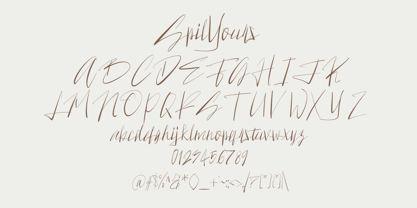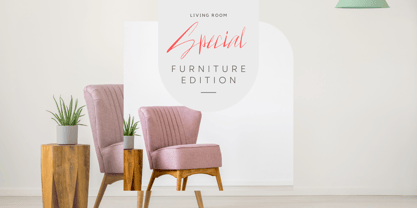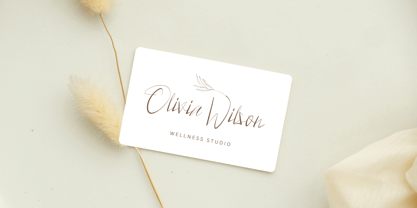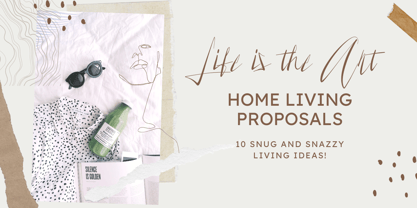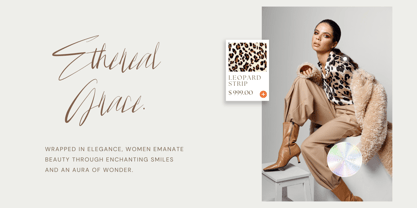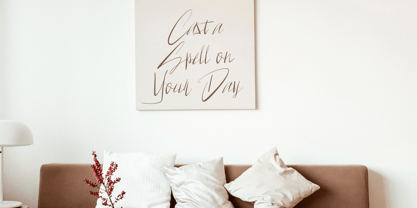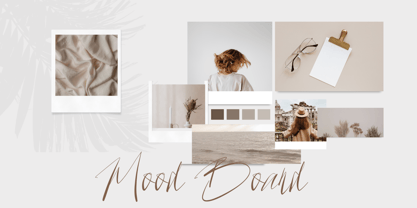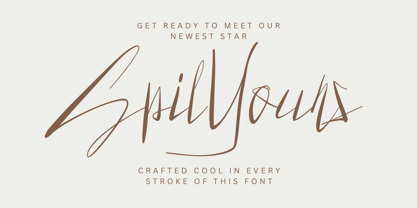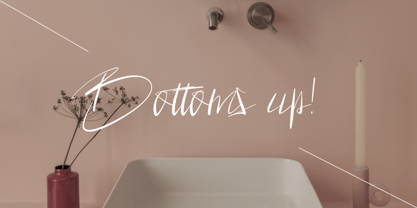
Spil Yours
by Saytype
The Spil Yours Font Family was designed by Sayuti Yuti and published by Saytype. Spil Yours contains 1 styles. More about this family
SpilYours – Signature Style with a Twist of Cool
Get ready to meet SpilYours, a handcrafted script font that blends elegant strokes with bold personality. Its effortless charm makes it perfect for everything from branding to editorial design, and everything in between.
Uppercase & lowercase characters
Natural, flowing ligatures
Punctuation & numbers
Ideal for: wedding invitations, logo designs, social media posts, packaging concepts, fashion lookbooks, or any project that craves a stylish human touch.
Let SpilYours be your new creative companion—adding expressive flair to your next big idea.